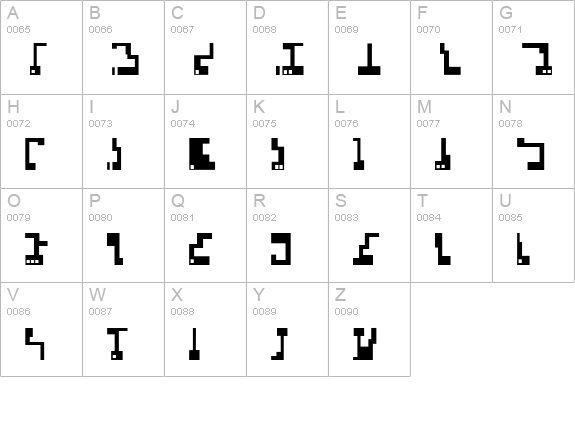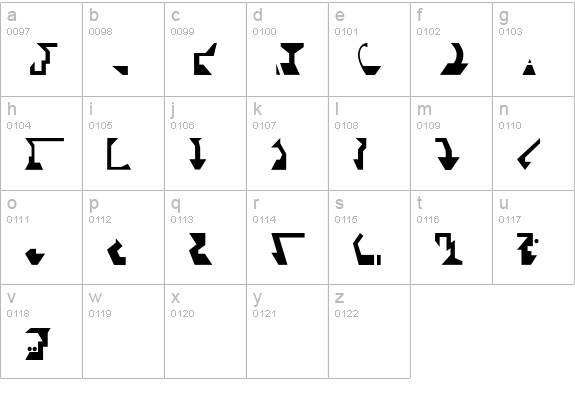
ST Cardassian Font Details
The ST Cardassian font is a stunning typeface that exudes elegance and sophistication. Inspired by the iconic Cardassian culture from the Star Trek universe, this font captures the essence of their distinctive style, making it perfect for a variety of design projects. With its sharp edges and bold lines, the ST Cardassian font commands attention and adds a touch of futuristic flair to any text. Whether you're creating a logo, designing a website, or crafting eye-catching headlines, this font will elevate your work to new heights. What sets the ST Cardassian font apart is that it is not only visually striking but also freely available to download. FontsMarket.com, a renowned platform for font enthusiasts, provides easy access to this remarkable typeface. You can simply visit the website, search for the ST Cardassian font, and download it at no cost. By offering this font for free, FontsMarket.com aims to empower designers, artists, and enthusiasts to bring their creative visions to life without any financial constraints. The ST Cardassian font's availability as a free download allows everyone to experience the beauty and versatility of this unique typeface. So, whether you're a professional graphic designer or a passionate hobbyist, don't miss the opportunity to incorporate the ST Cardassian font into your projects. Its bold and captivating presence will undoubtedly leave a lasting impression on your audience. Head over to FontsMarket.com today and unlock the possibilities with this remarkable font.